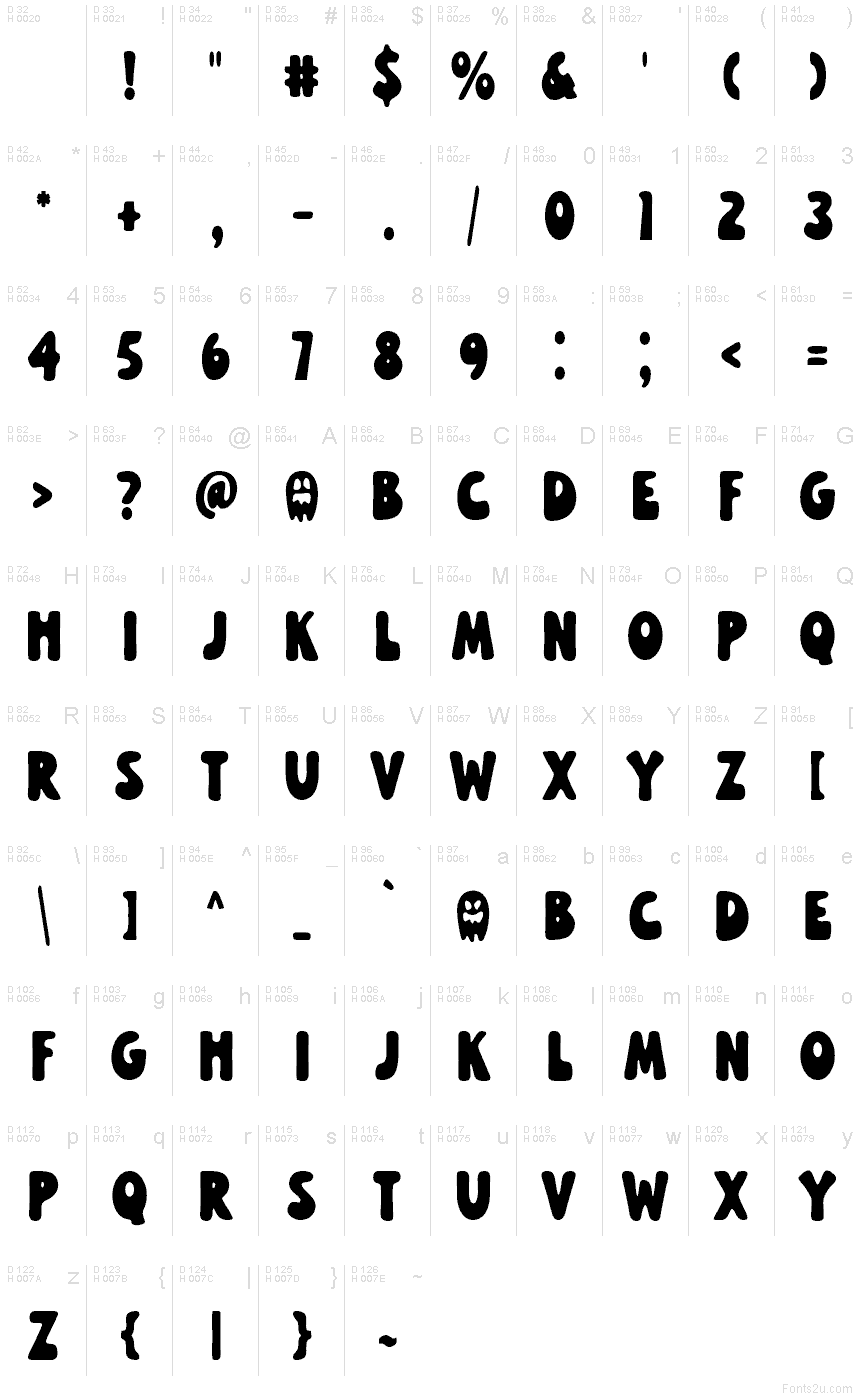
Haunted Sunday
Haunted Sunday font by keithzo is a free Halloween display font that turns spooky into friendly fun. Chunky, rounded letters read like soft blobs of ink, with peekaboo ghost faces tucked into the counters for a cheeky jump-scare. The weight is stout and consistent, so headlines pop even at a distance while keeping that kid-safe, candy-corn vibe.
Using Haunted Sunday, you can spin up party posters, trick-or-treat bag labels, classroom flyers, sticker sheets, YouTube thumbnails, and social posts that feel playful, not gory. This free font shines on big, bold titles and short phrases; keep it large and let the ghosts breathe. Pair with a clean, narrow sans for body copy to keep the boo-to-business balance.